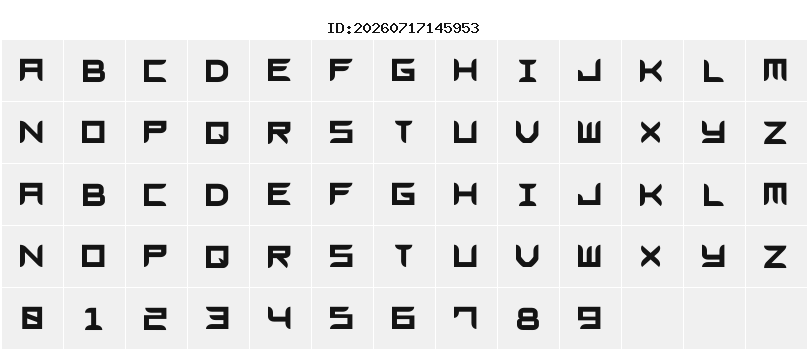
Blades GF Free Preview
• Font Name: Blades GF Free
• Full Font Name: Blades GF Free
About Blades GF Free.ttf
Blades GF Free.ttf is a modern, elegant sans-serif font designed for ultimate readability and visual harmony. Perfect for branding, headlines, web design, and print materials.